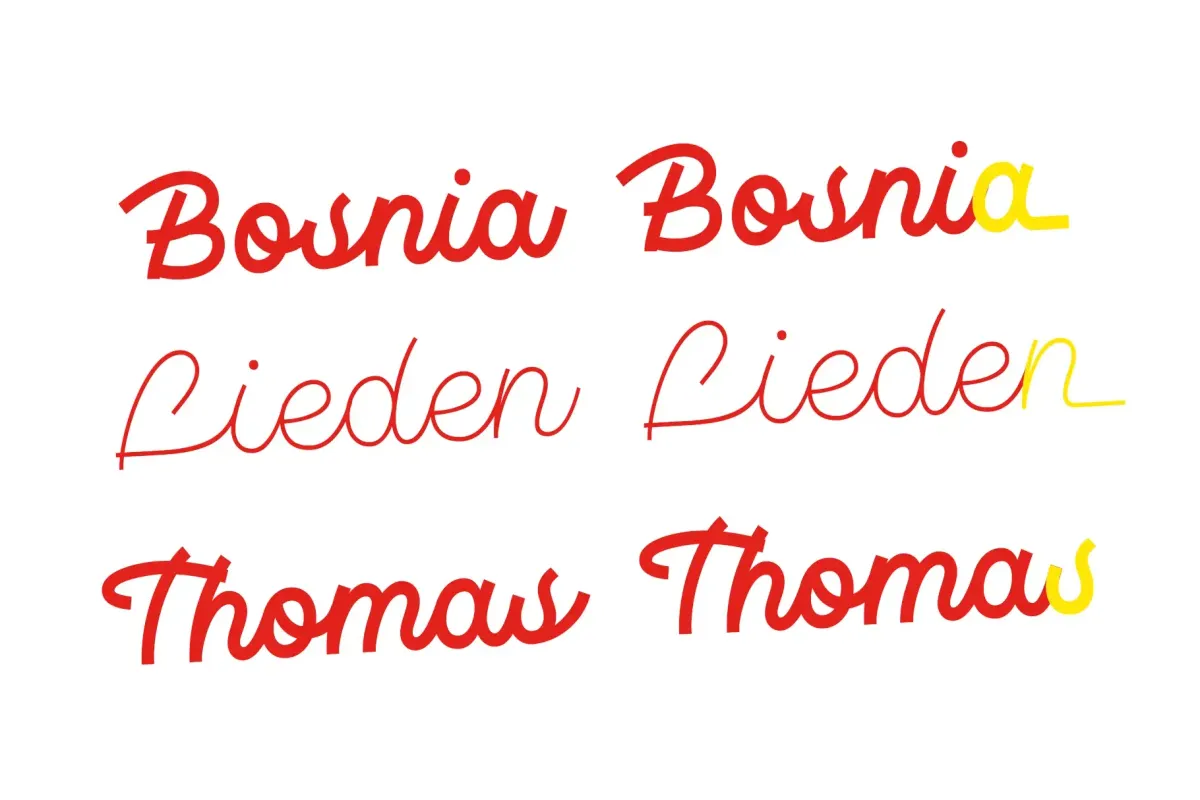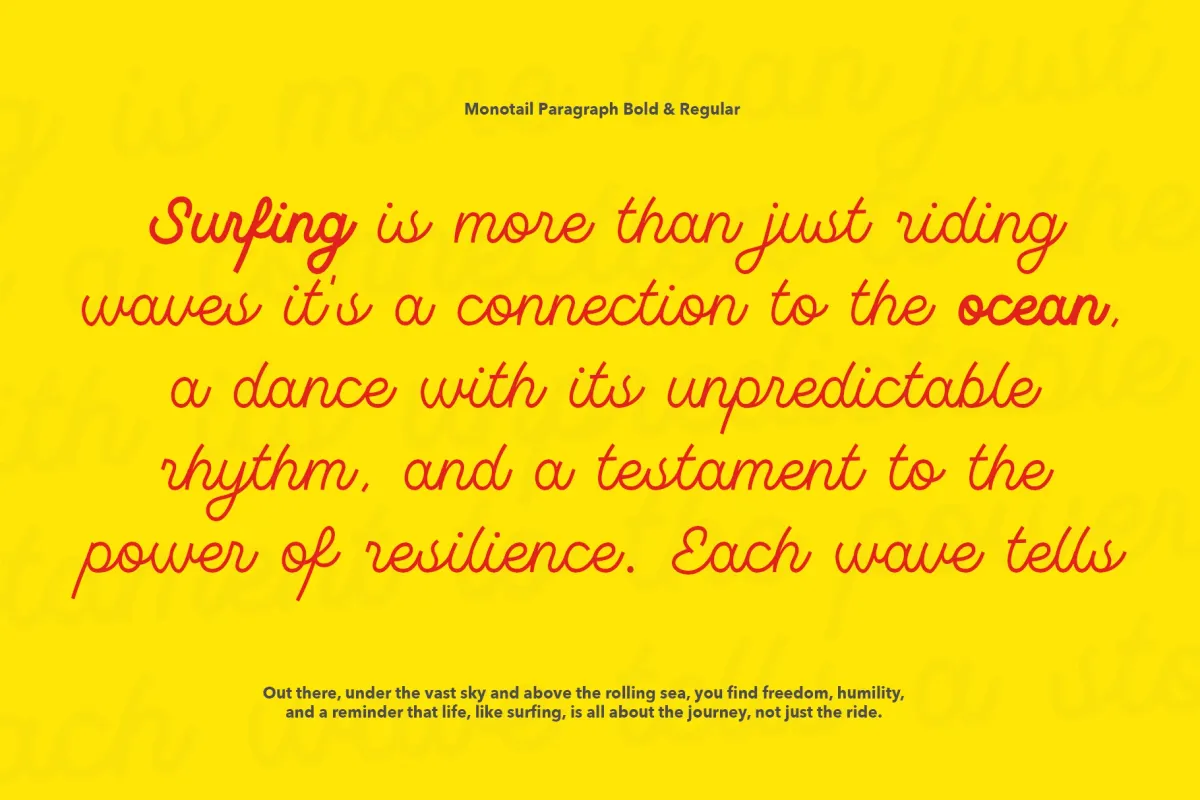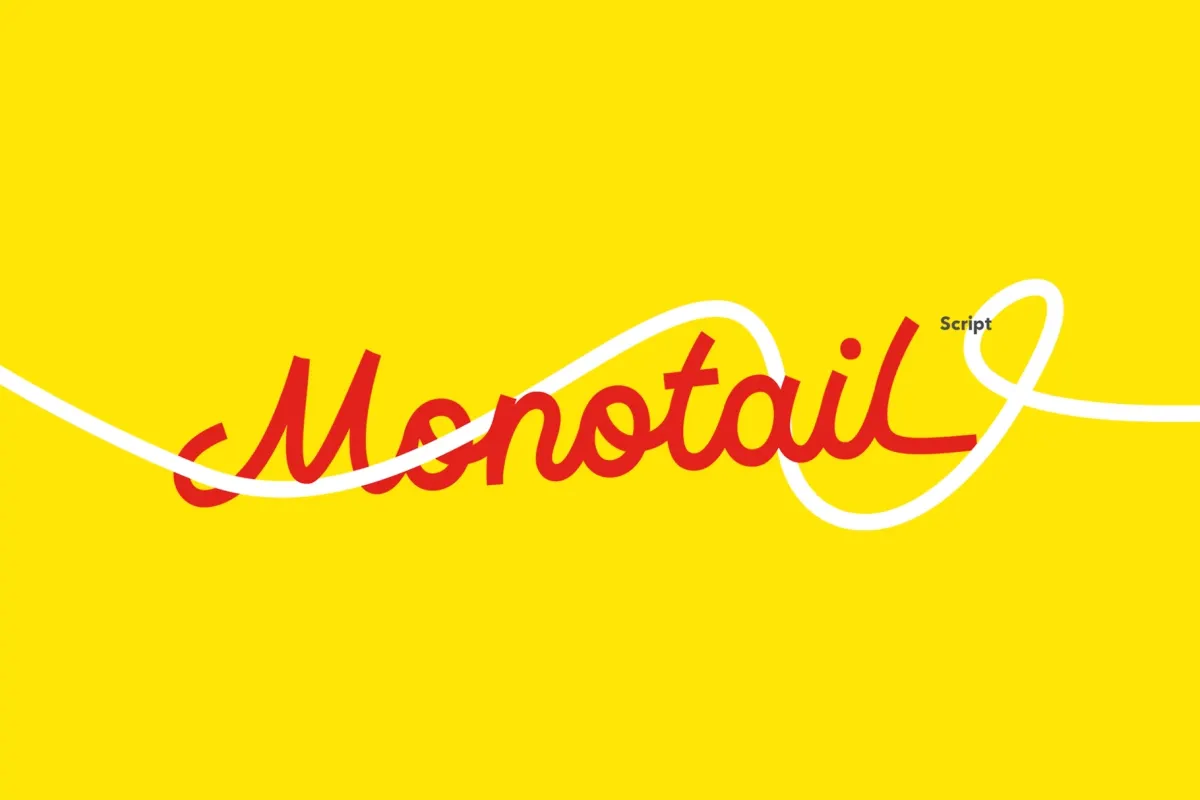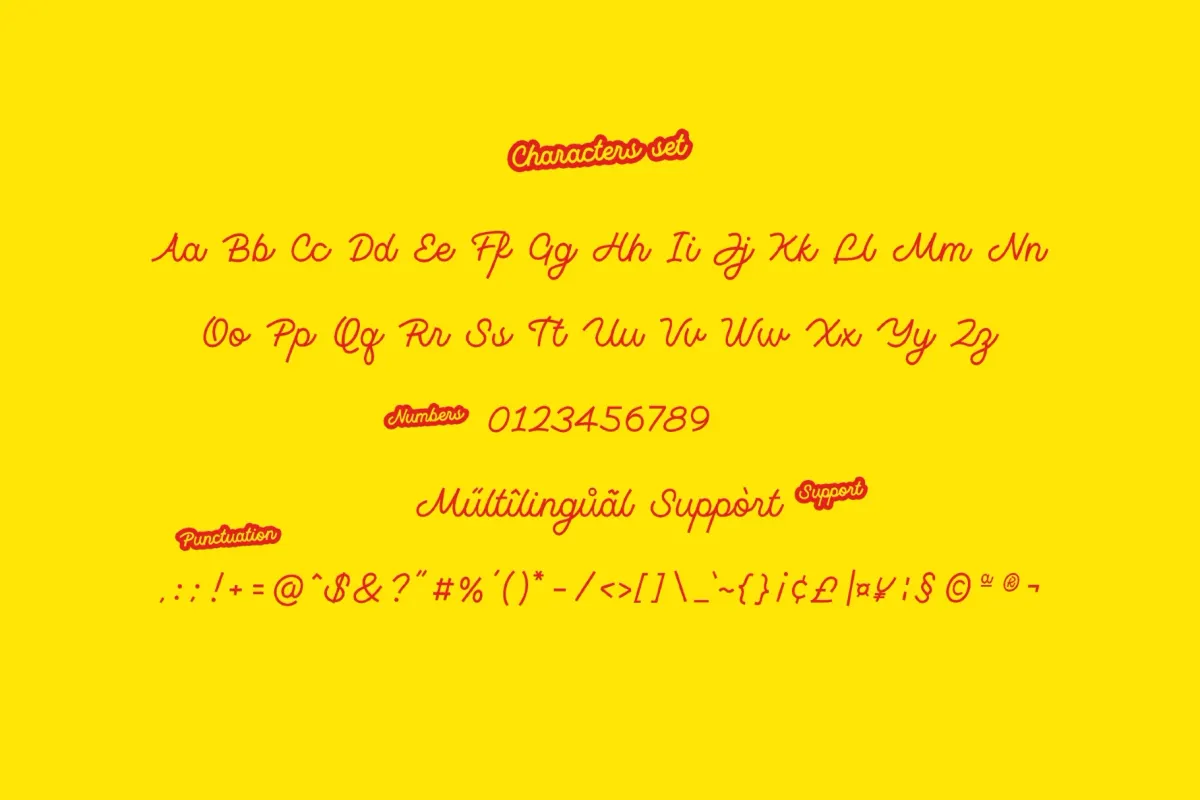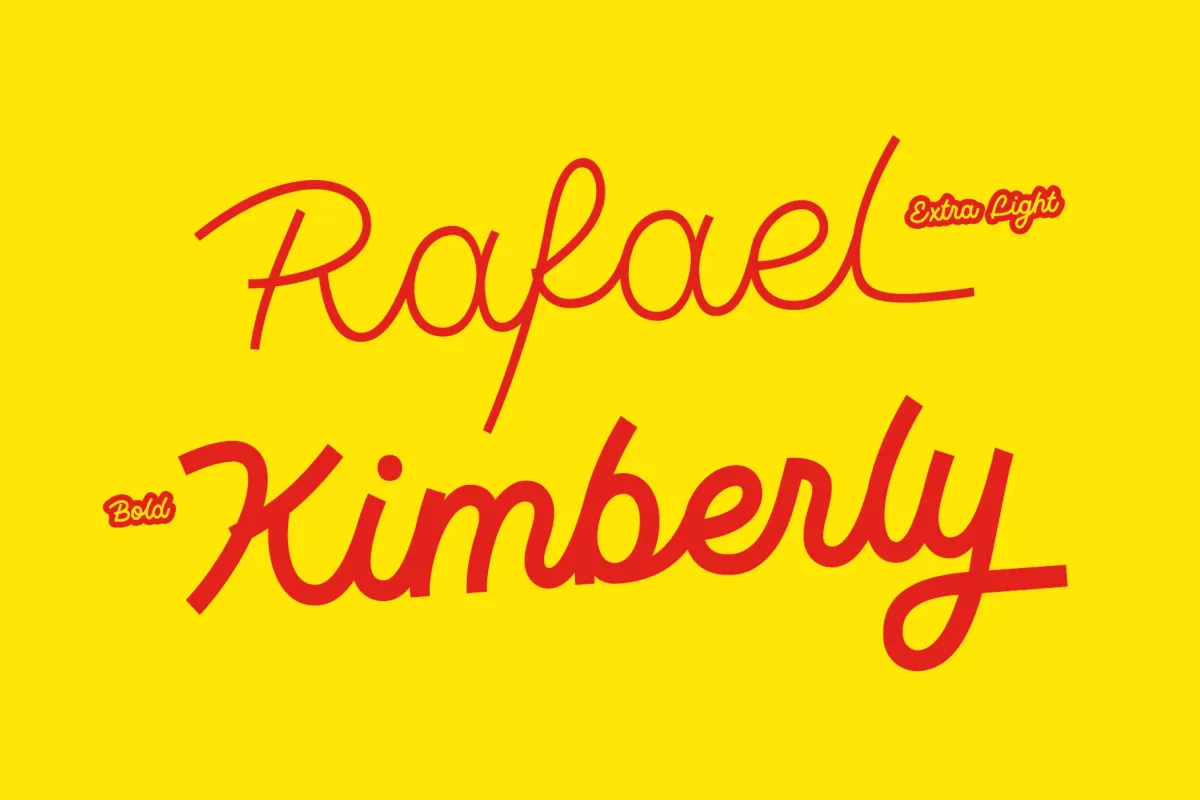
Monotail Script - Monoline Script Font Family
Monotail Script keeps every stroke the same weight across all nine cuts, from a hairline Thin to a solid Black, so the loops stay evenly weighted rather than swelling into calligraphic contrast. Connecting strokes flow letter to letter without breaking rhythm, and swash caps and alternate lowercase forms swap in for headline moments. A separate paragraph style holds the same monoline structure at body-text size, keeping long-form quotes and captions legible.
Use it for wordmarks and logotypes, packaging labels, wedding stationery, social quote graphics, and both display headlines and body-text pairings.
• 9 weights: Thin, Extra Light, Light, Regular, Medium, SemiBold, Bold, Extra Bold, Black;
• swash capitals & alternate lowercase forms;
• numerals & punctuation;
• multilingual support